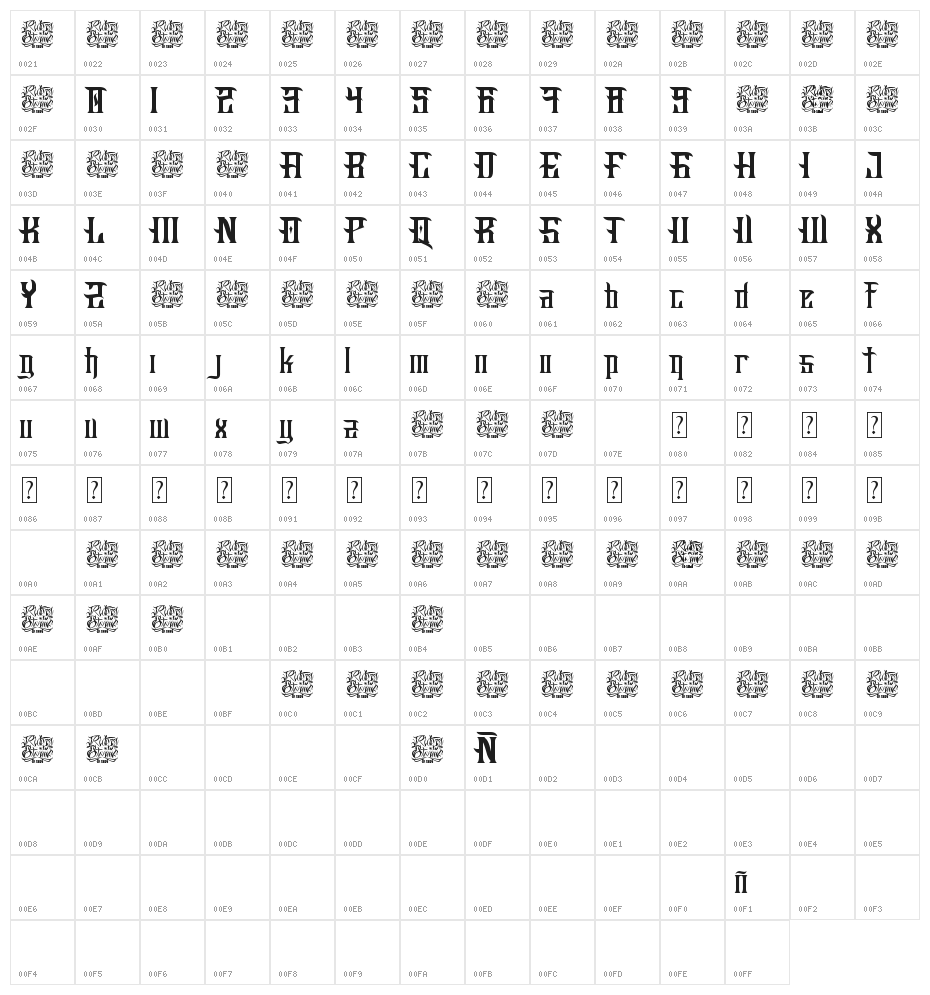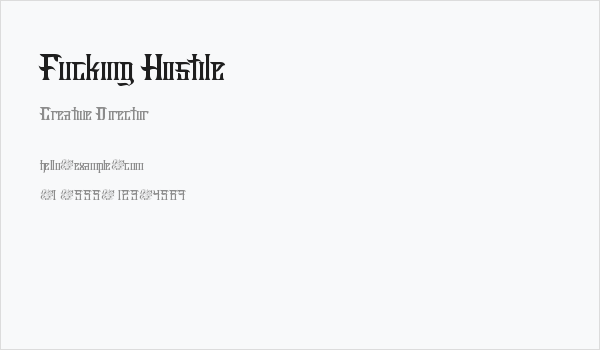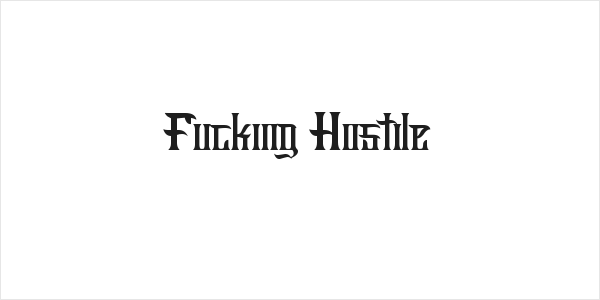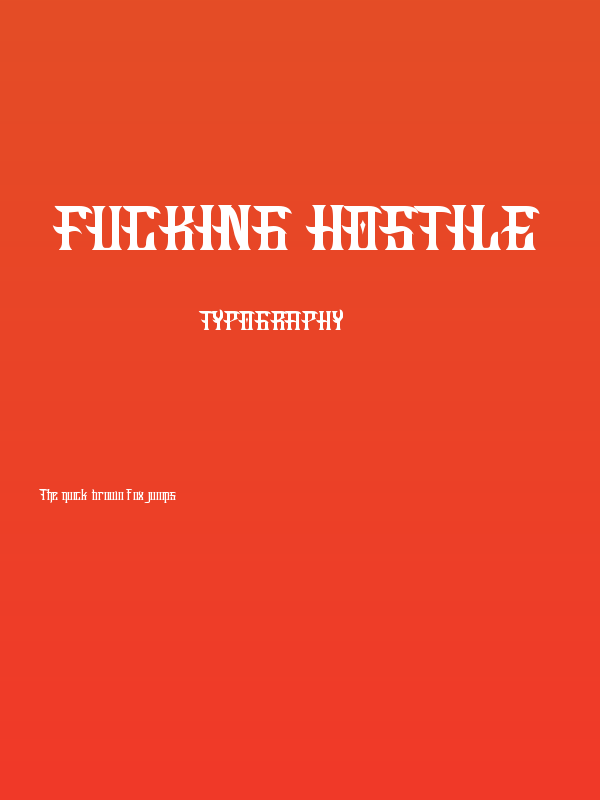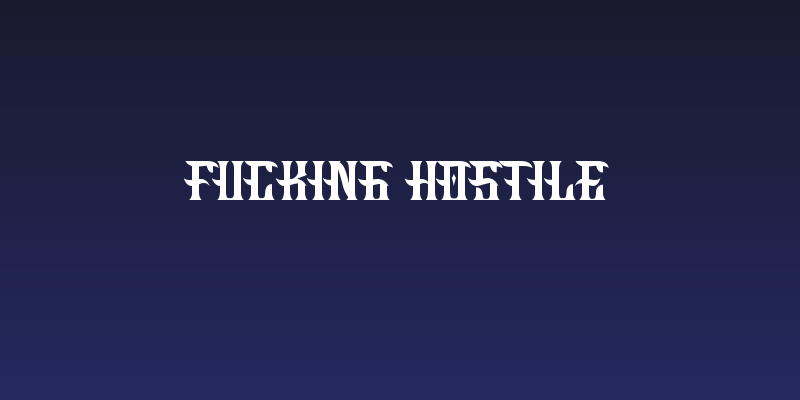
Fucking Hostile Font
Fucking Hostile Description
This font features a bold and aggressive style, reminiscent of traditional blackletter typefaces with a modern twist. The characters are sharply defined with pointed serifs and angular strokes, creating a sense of intensity and power. The uppercase letters are particularly striking, with a strong vertical emphasis and intricate detailing. The lowercase letters maintain the same boldness, ensuring consistency across the typeface. Numbers and special characters are designed to match the overall aesthetic, making this font suitable for impactful and eye-catching designs.
| Proposed Projects | Ideal for music album covers, posters, branding for edgy or alternative products, and any design requiring a strong, impactful presence. |